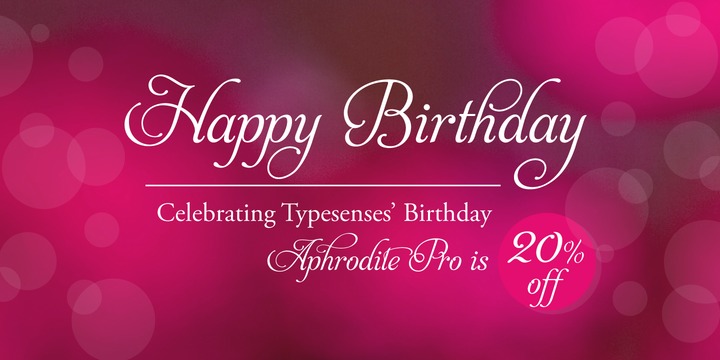
Aphrodite Pro
Aphrodite Pro is a marvellous handmade typeface loaded with alternate and ligature forms specifically designed by popular designers Sabrina Mariela Lopez and Maximiliano Sproviero. The font is an amazing and unique amalgamation of beauty and functionality. This OpenType font can be used in a variety of places. It is available in a huge range of … Read more